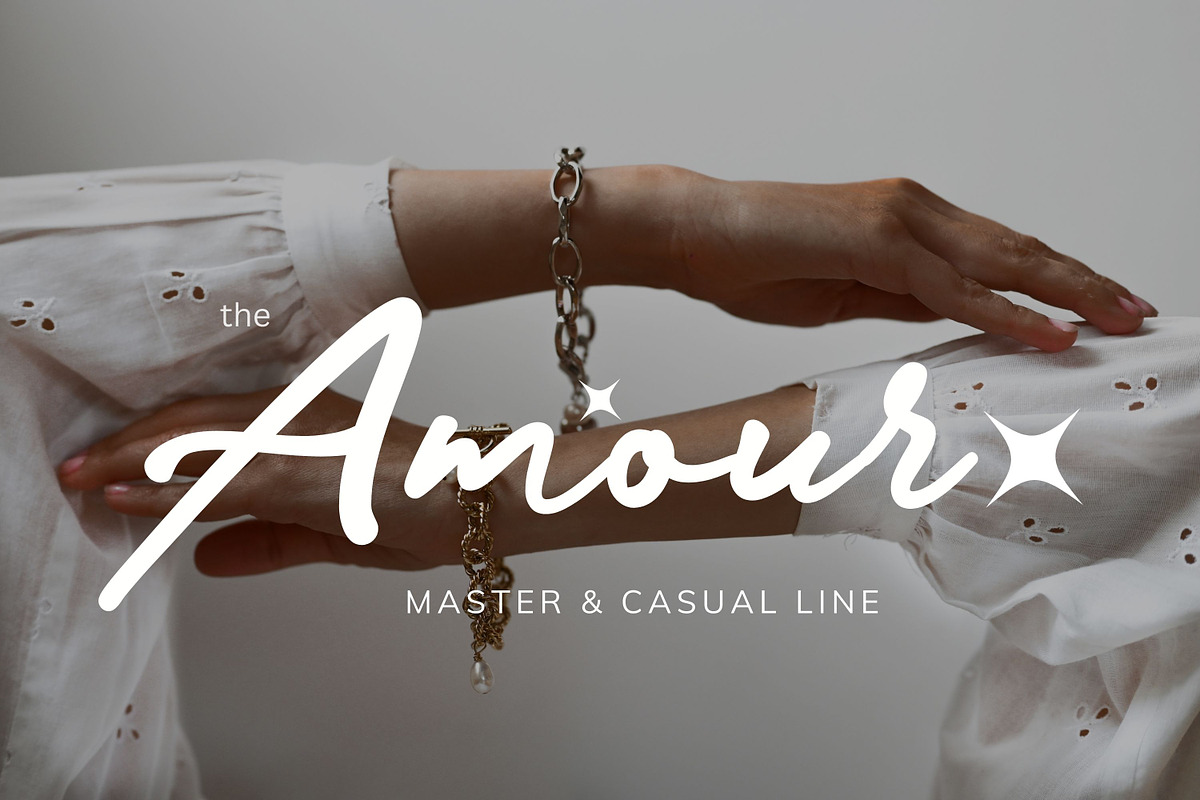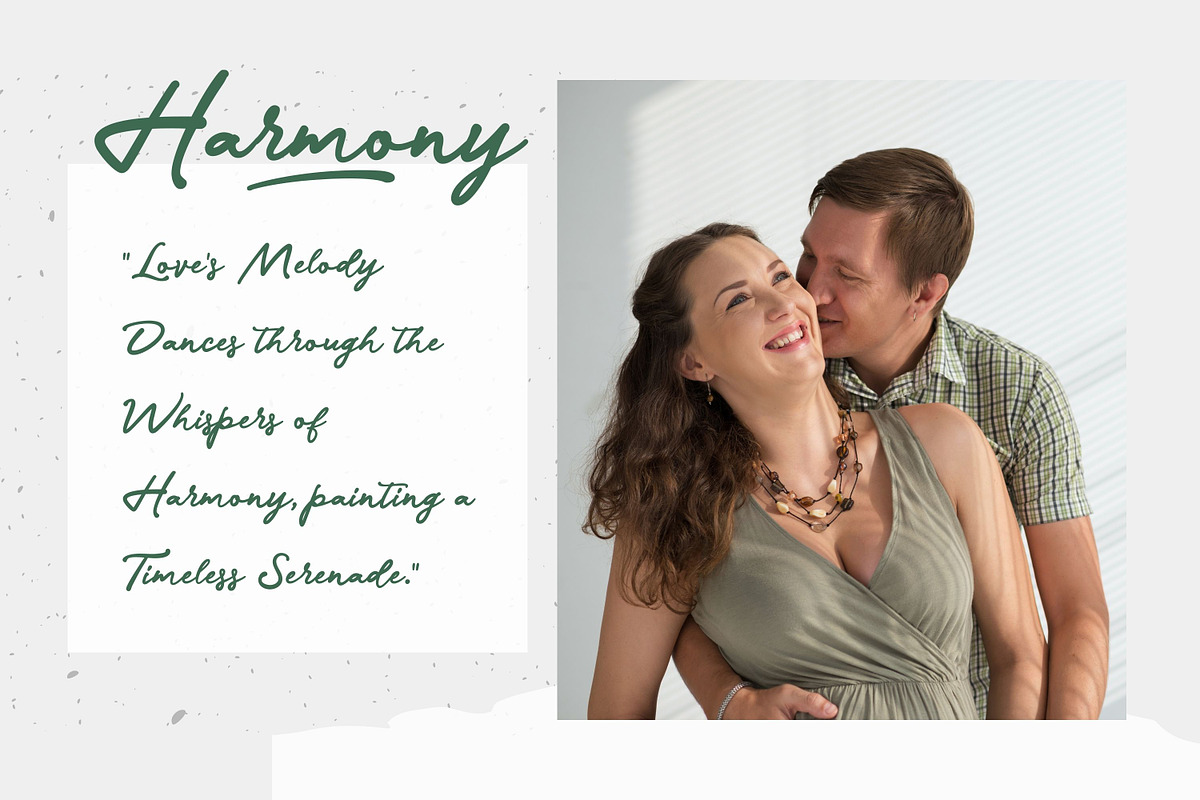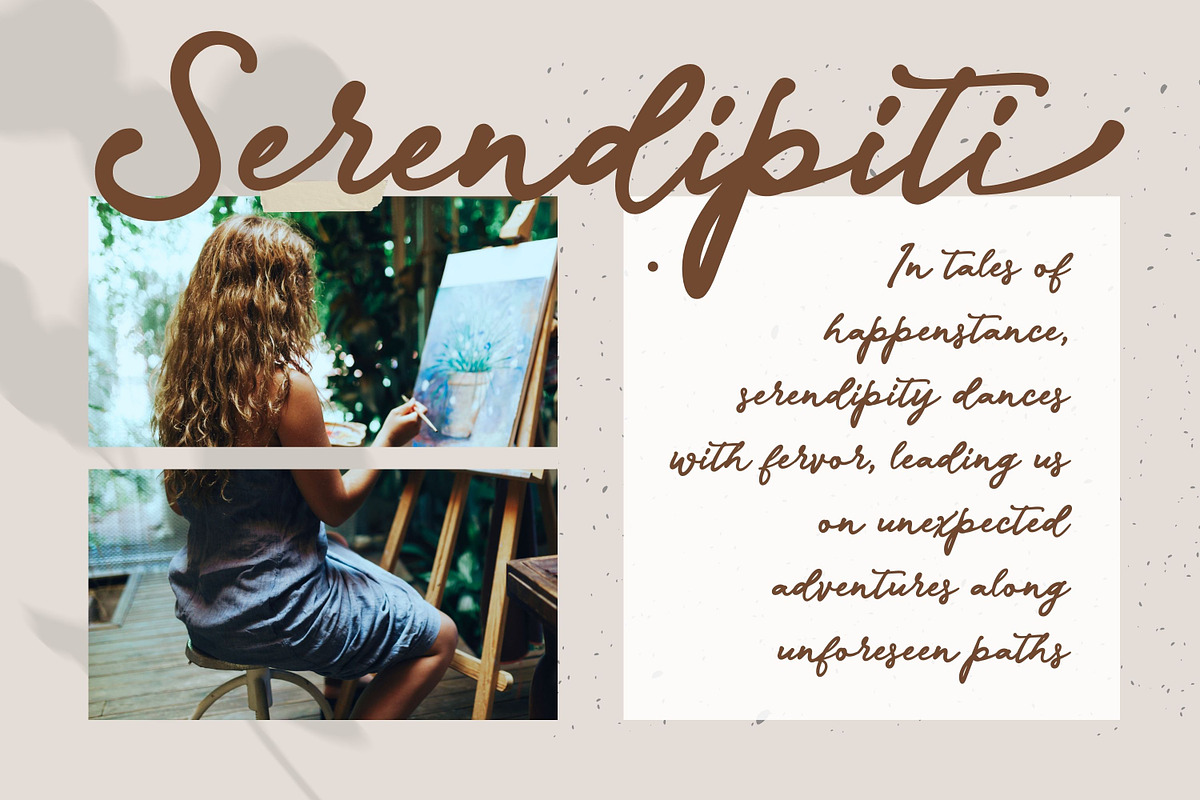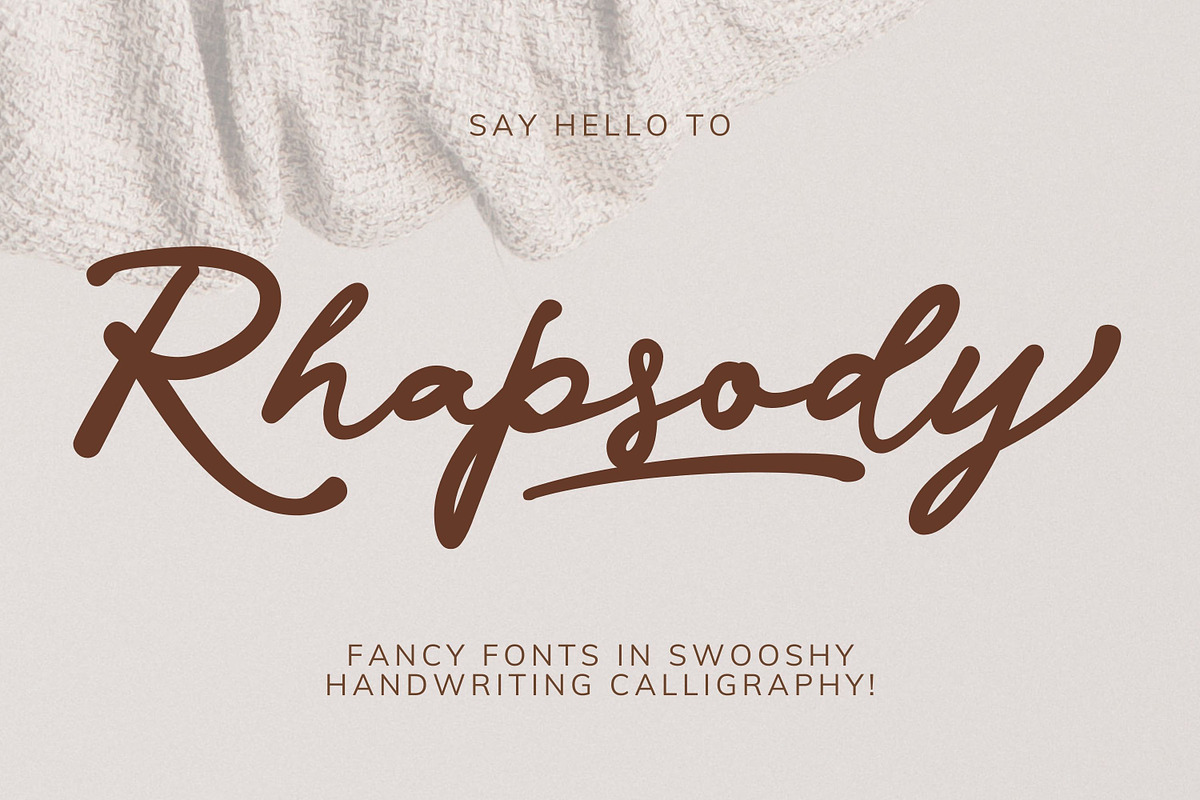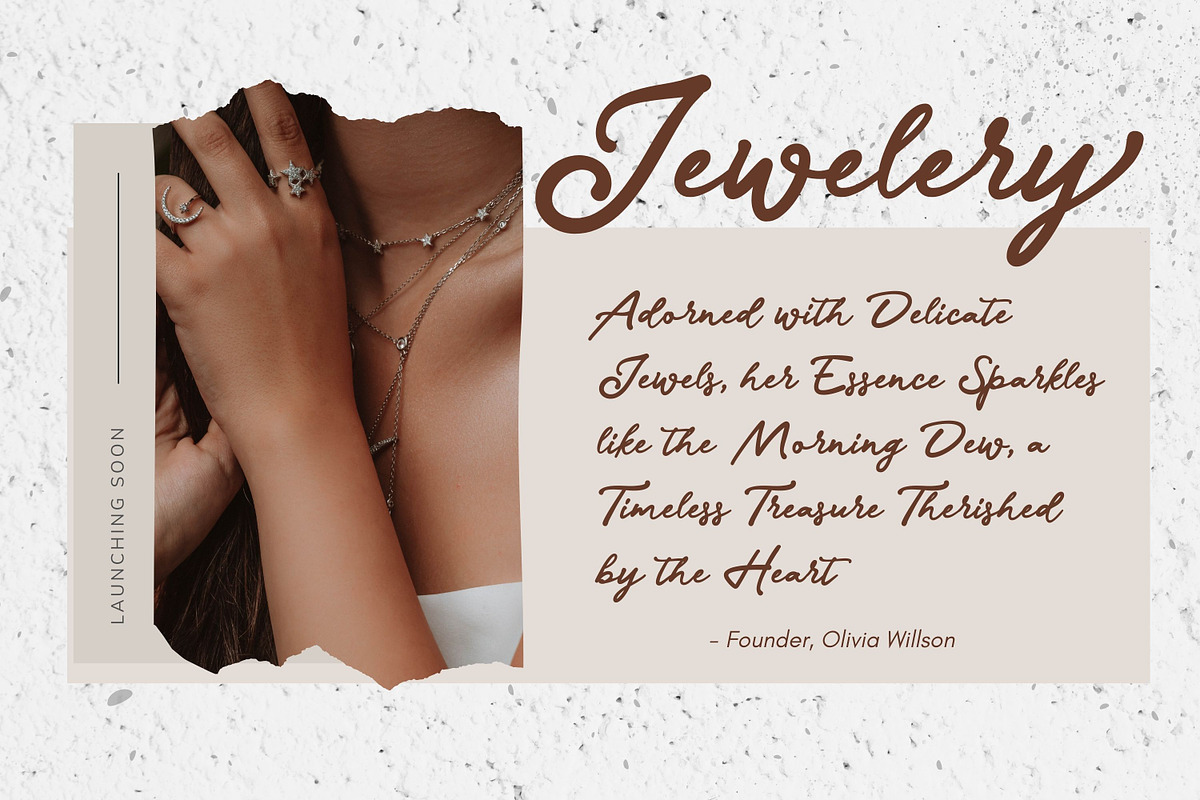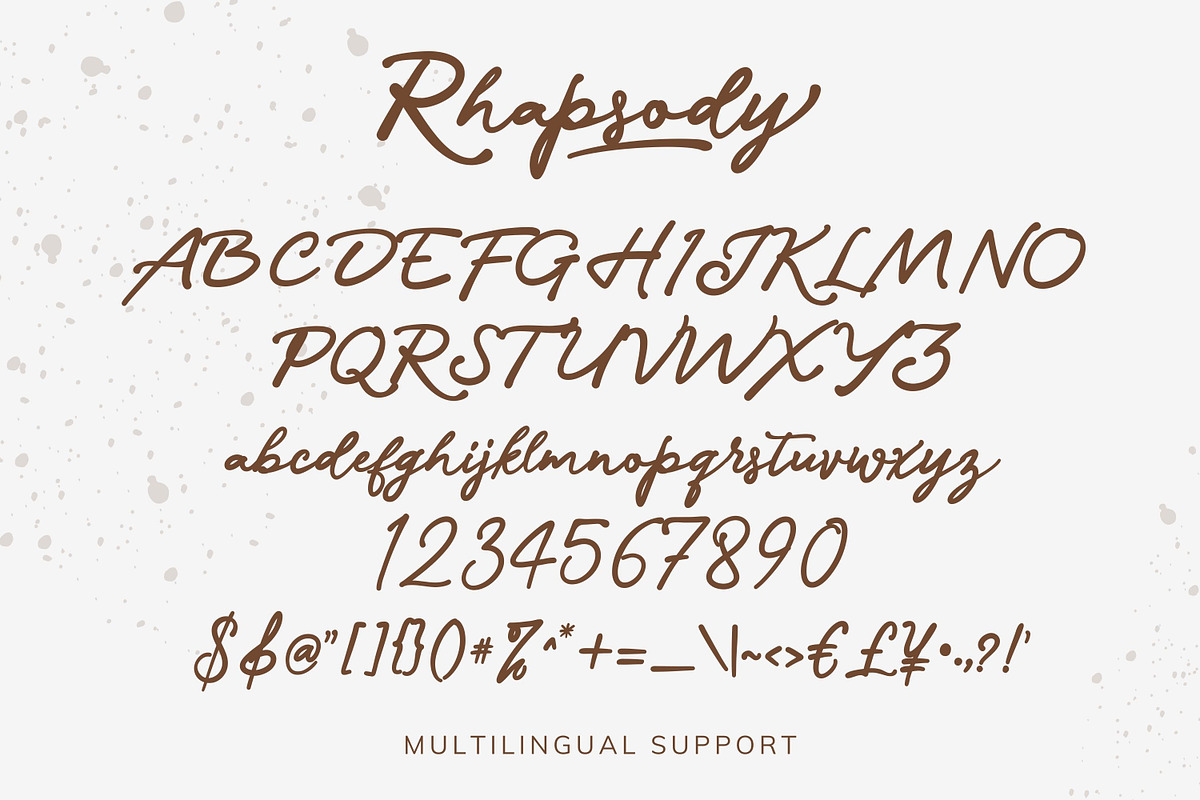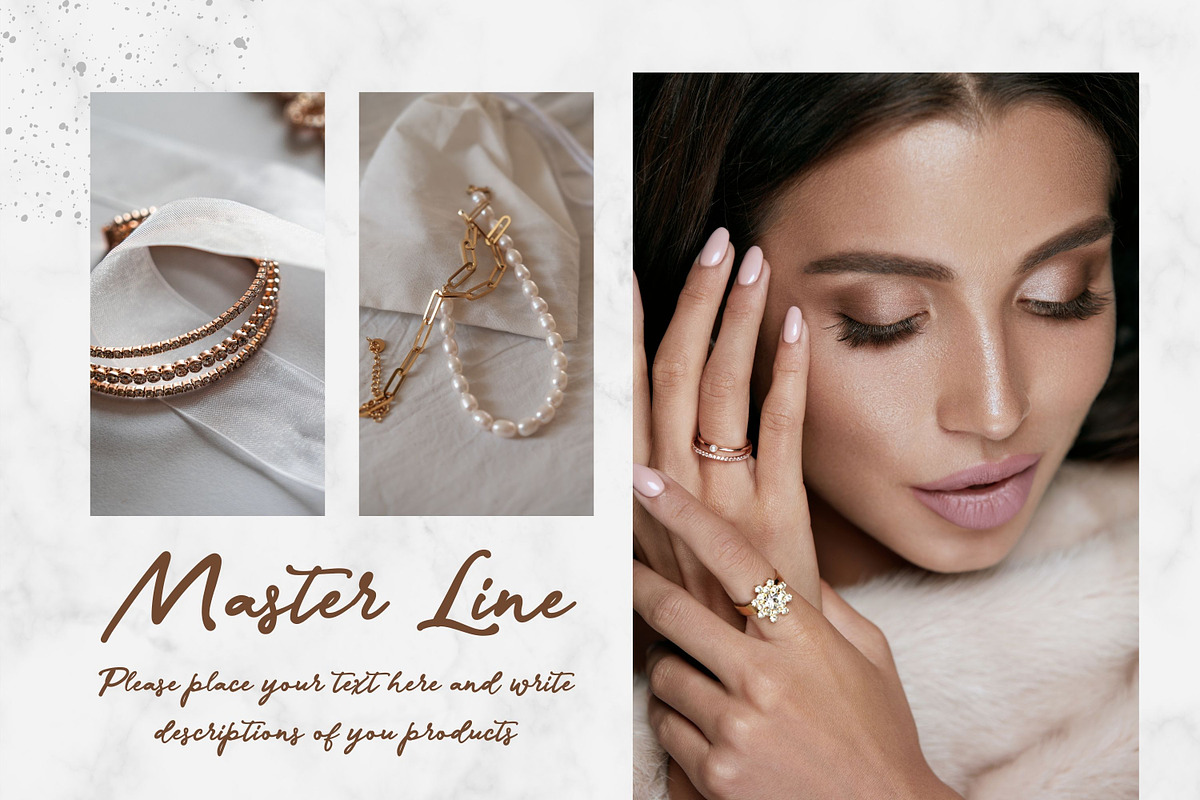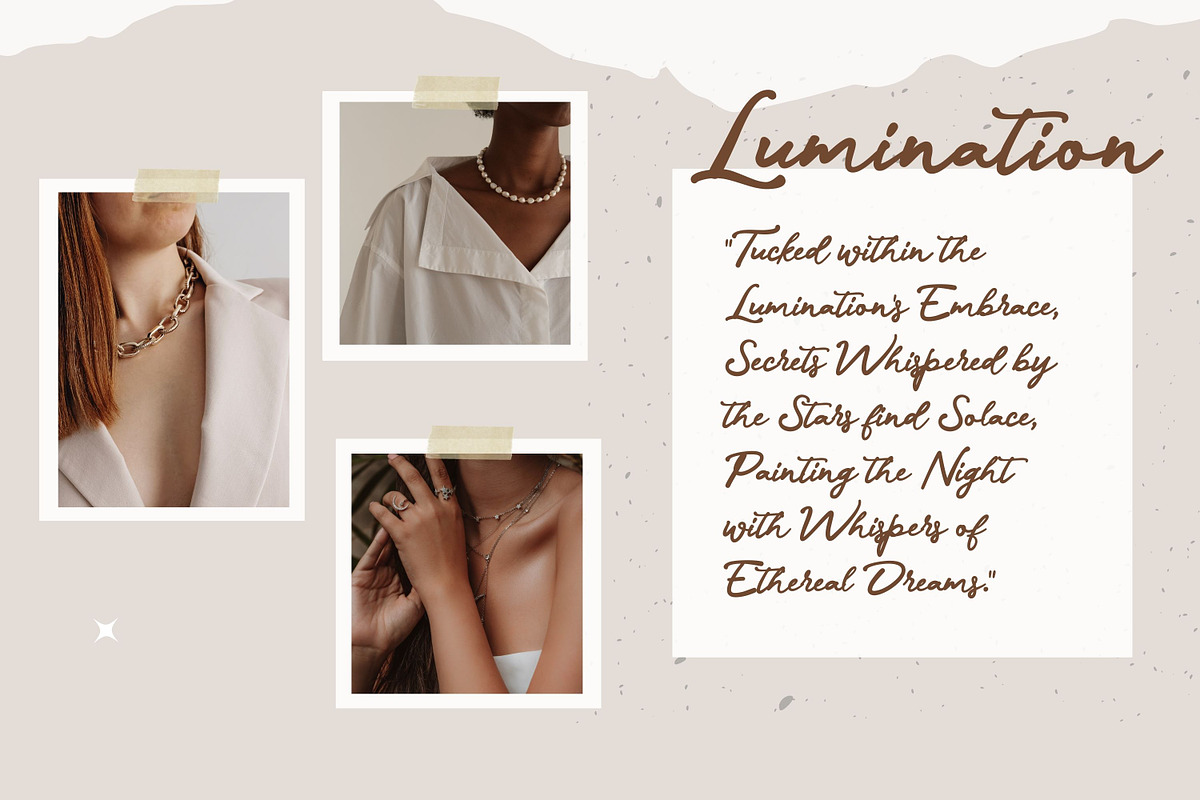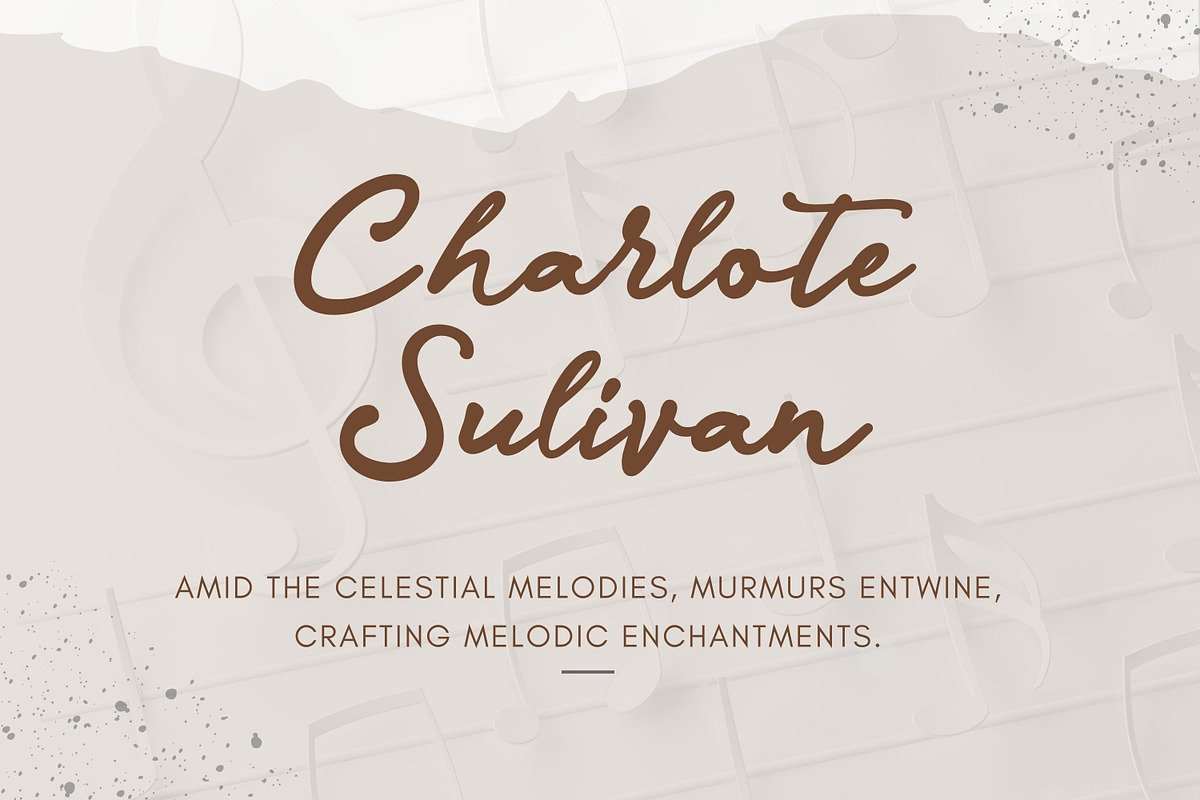
Rhapsody
Rhapsody Script is perfect for modern designs like ads, sales, logos, branding, posters, social media text overlays, and wedding invitations. Lowercase letters include alternates and elegant beginning and end swashes for a stylish finish. Let Rhapsody Script add charm and artistry to your projects!